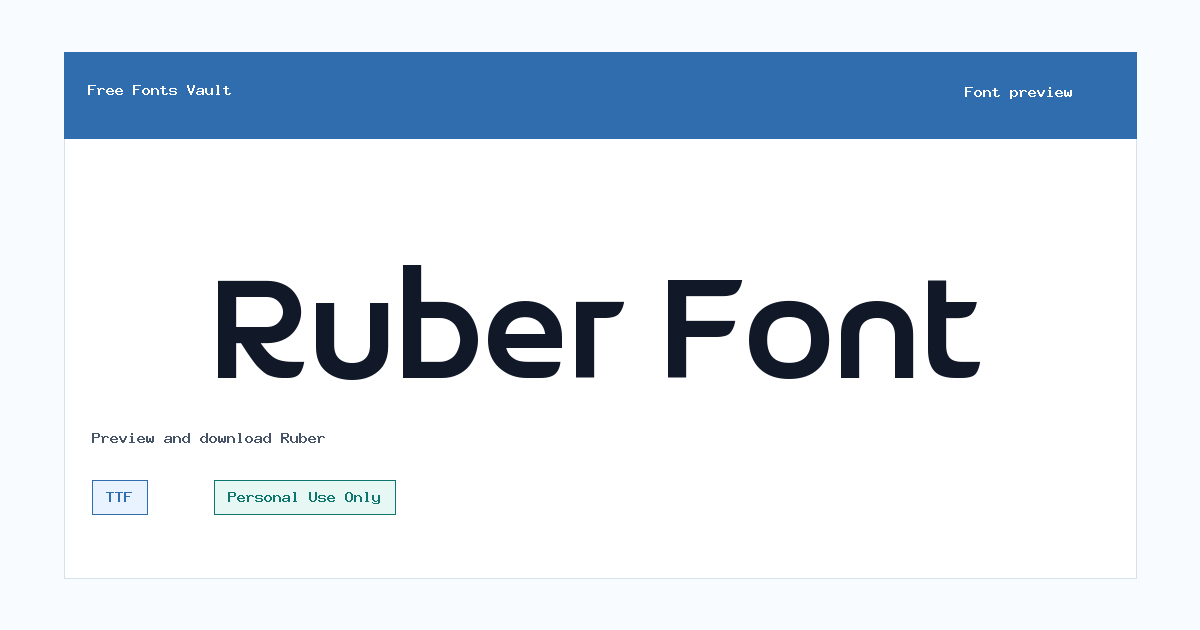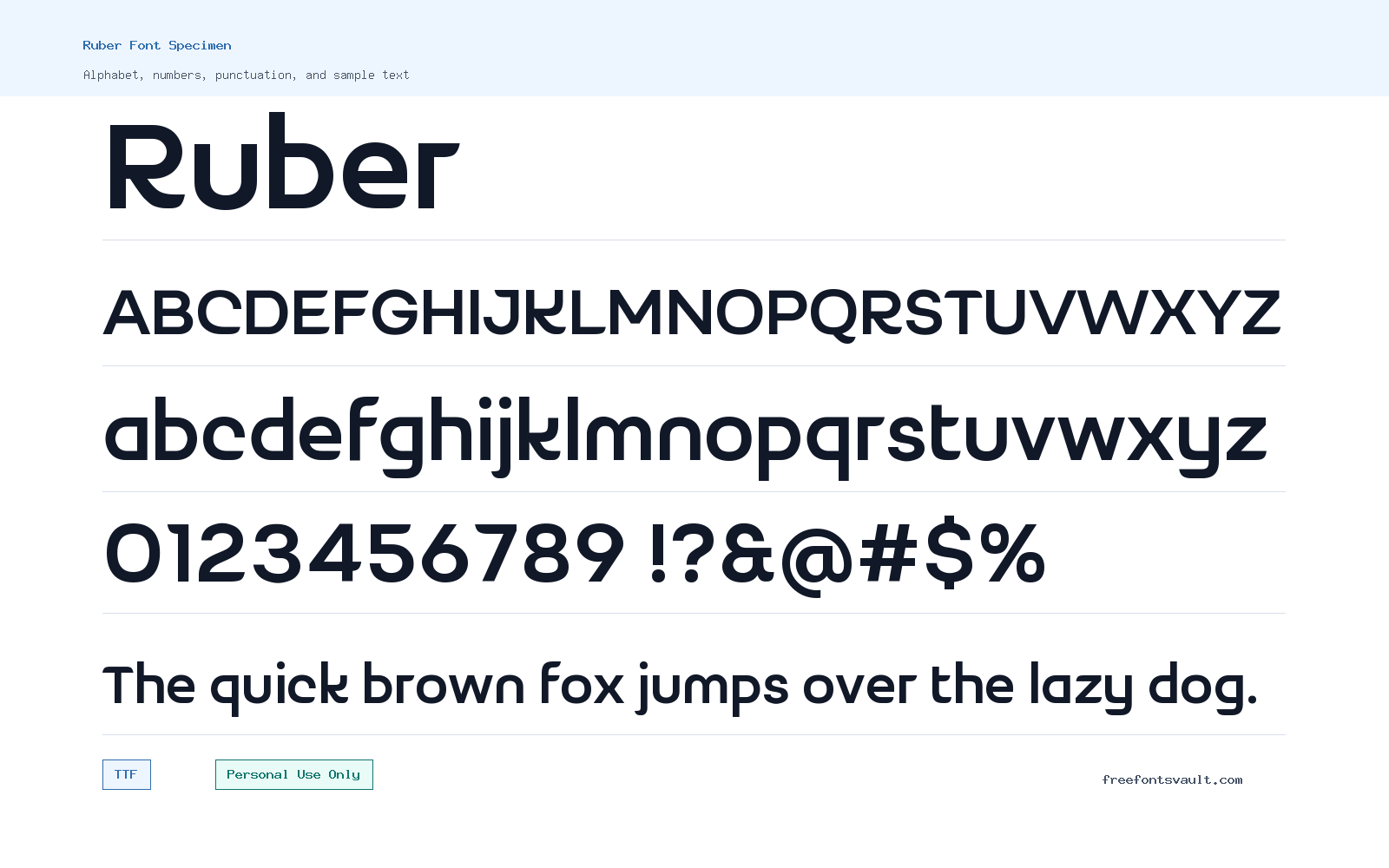
Ruber
Ruber font.
Ruber is a sans serif font from AZSType with a clean, direct look that works well for testing bold display ideas, simple titles, and short design text. It is offered in a regular TTF file and is marked for Personal Use Only, so check the license terms before using it in any commercial project.
About Ruber Font
Ruber has a straightforward sans serif structure, which makes it easy to preview in common design settings such as headings, posters, labels, social graphics, and quick layout drafts. Its regular weight gives you a balanced starting point: not too heavy for short paragraphs, but strong enough to stand out in larger text. Because the family information points to a single regular style, it is best to treat Ruber as a focused display or general-use option rather than a full branding system with multiple weights.
- Clean sans serif appearance suited to short text, headings, and personal design experiments.
- Personal posters, quote graphics, mockups, and social media visuals.
- Headlines, labels, short titles, and simple layout previews.
What is Ruber best used for?
Ruber is best tested for short text such as titles, posters, labels, mockups, and personal graphics. For long paragraphs, pair it with a more readable body font and review spacing at small sizes.